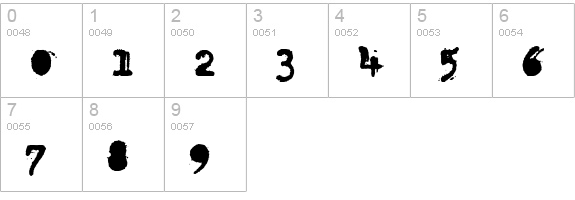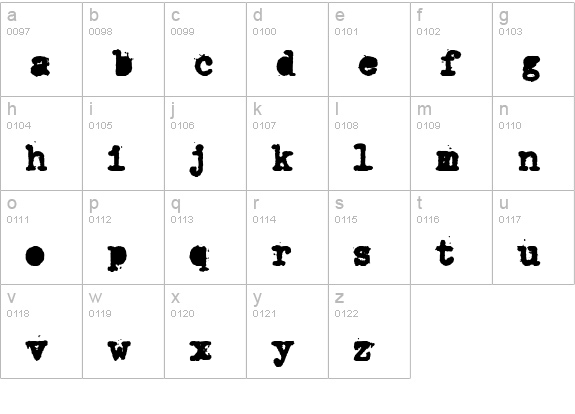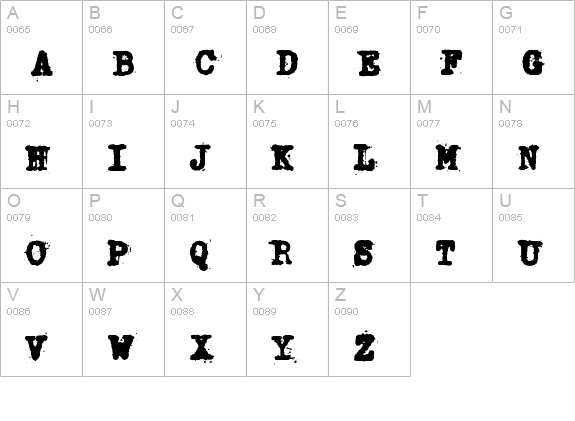
DumbOldTypewriter AlternateHeavy Font Details
Introducing DumbOldTypewriter AlternateHeavy font - a unique and stylish typeface that combines the classic charm of a vintage typewriter with a modern twist. With its bold and heavy design, this font exudes a strong and commanding presence, making it perfect for headlines, posters, and other eye-catching designs. What sets DumbOldTypewriter AlternateHeavy font apart is its alternate characters that add a touch of creativity and versatility to your projects. Whether you're looking to create a retro-inspired design or add a bold statement to your branding, this font has got you covered. Best of all, DumbOldTypewriter AlternateHeavy font is available for free download at FontsMarket.com. So go ahead and elevate your designs with this striking and expressive typeface that will surely make a lasting impression.